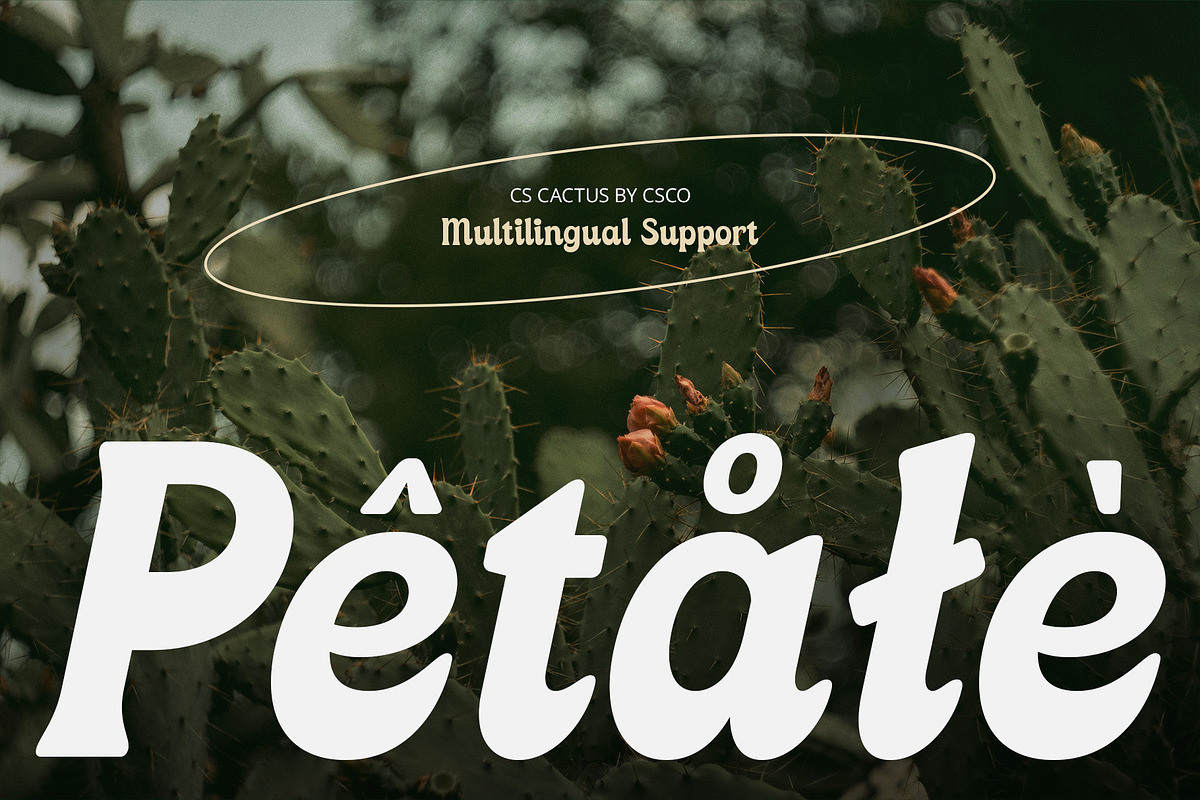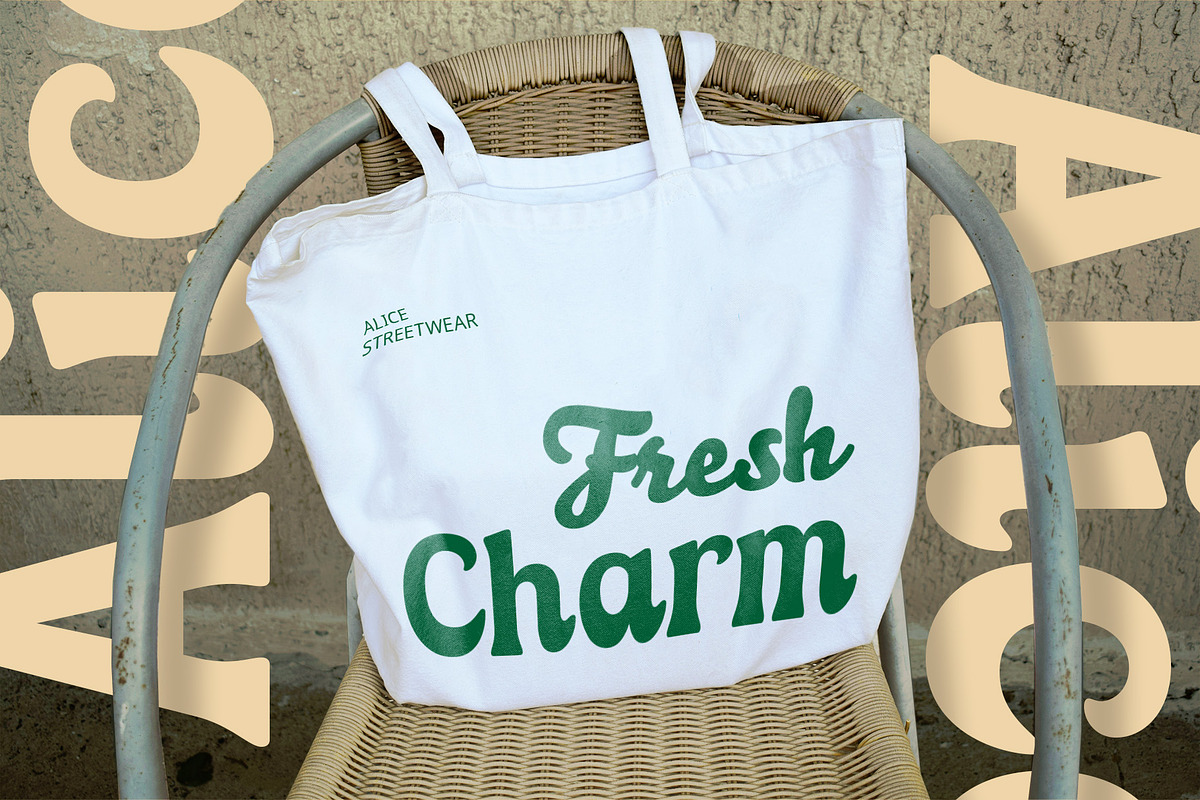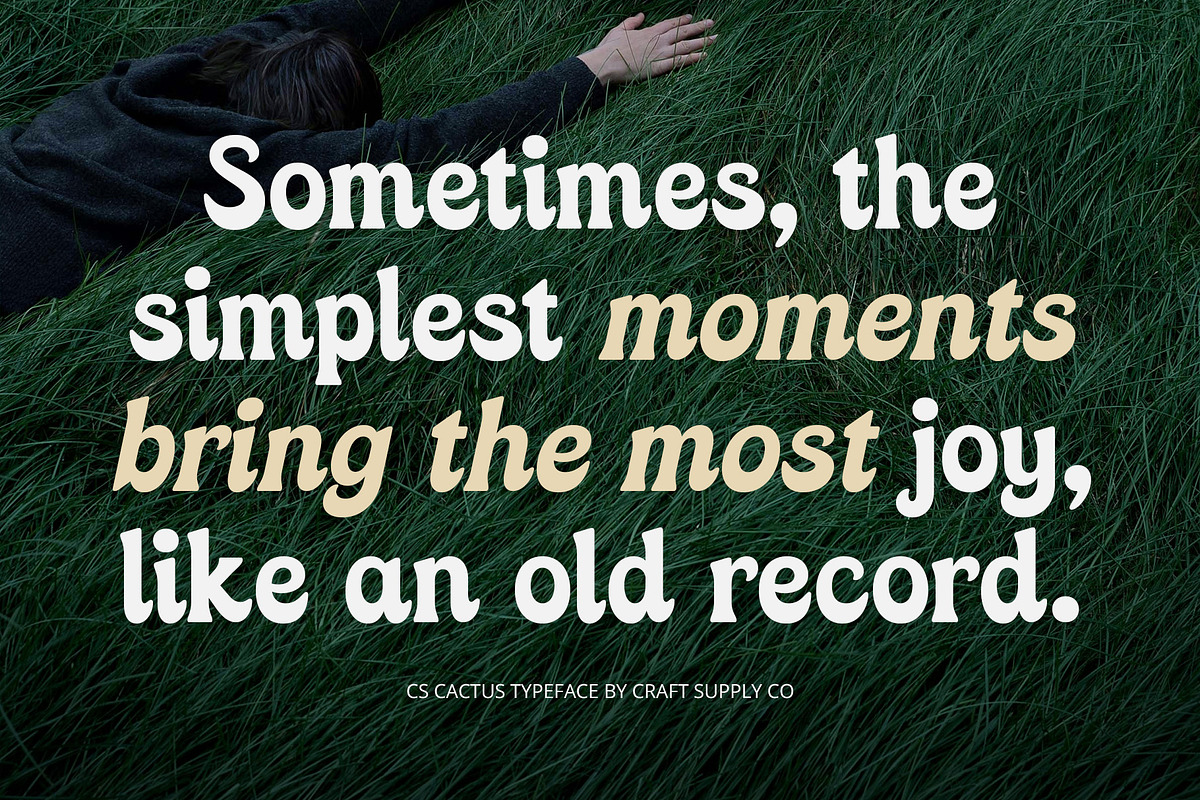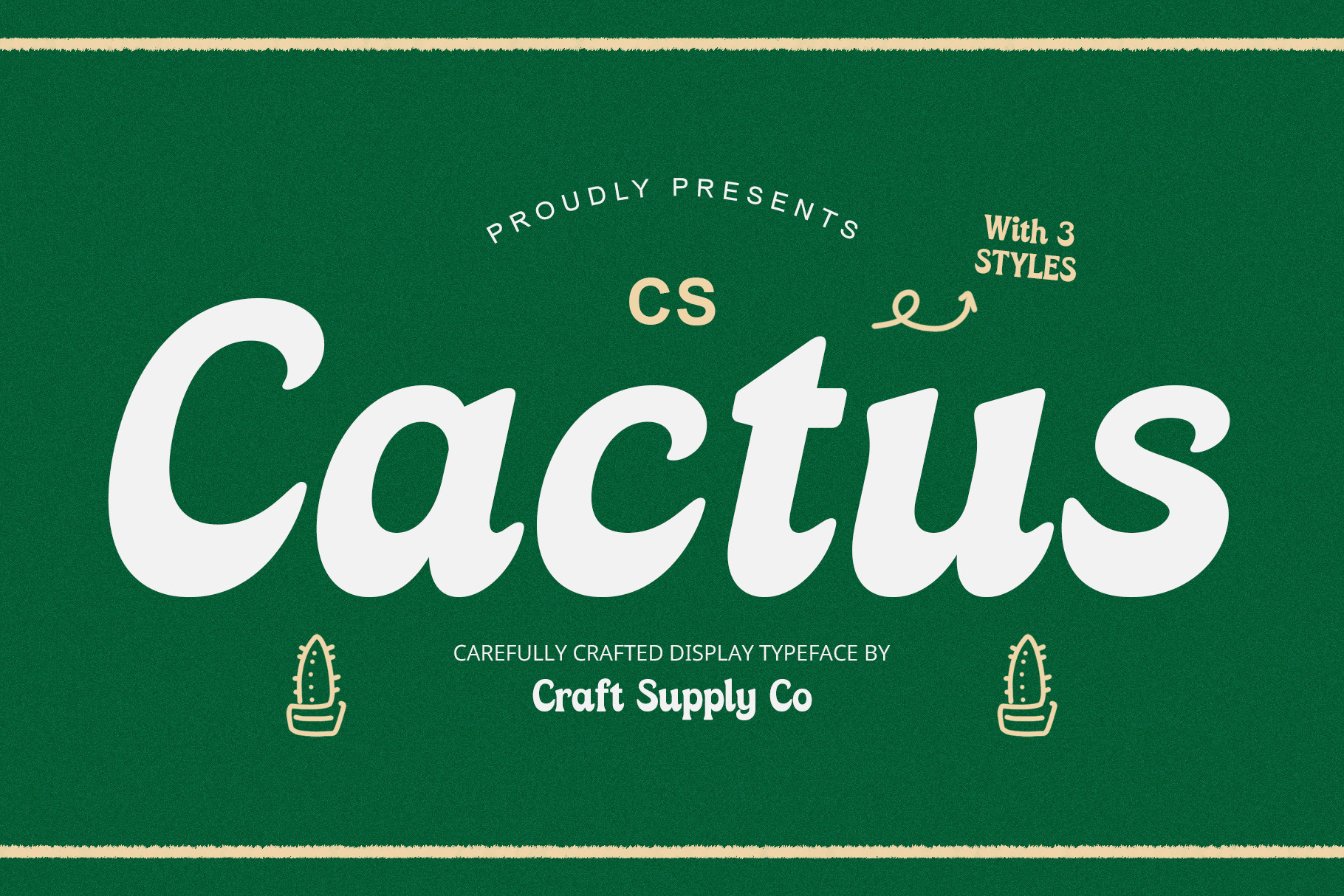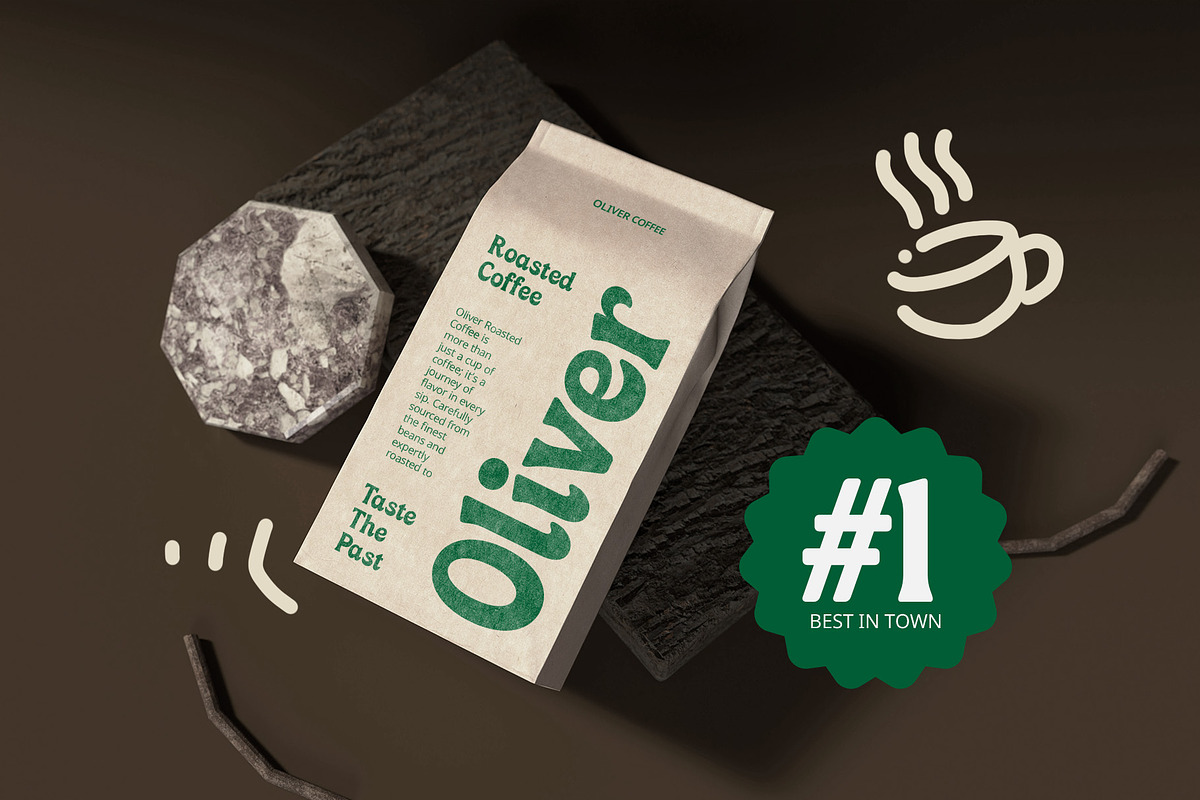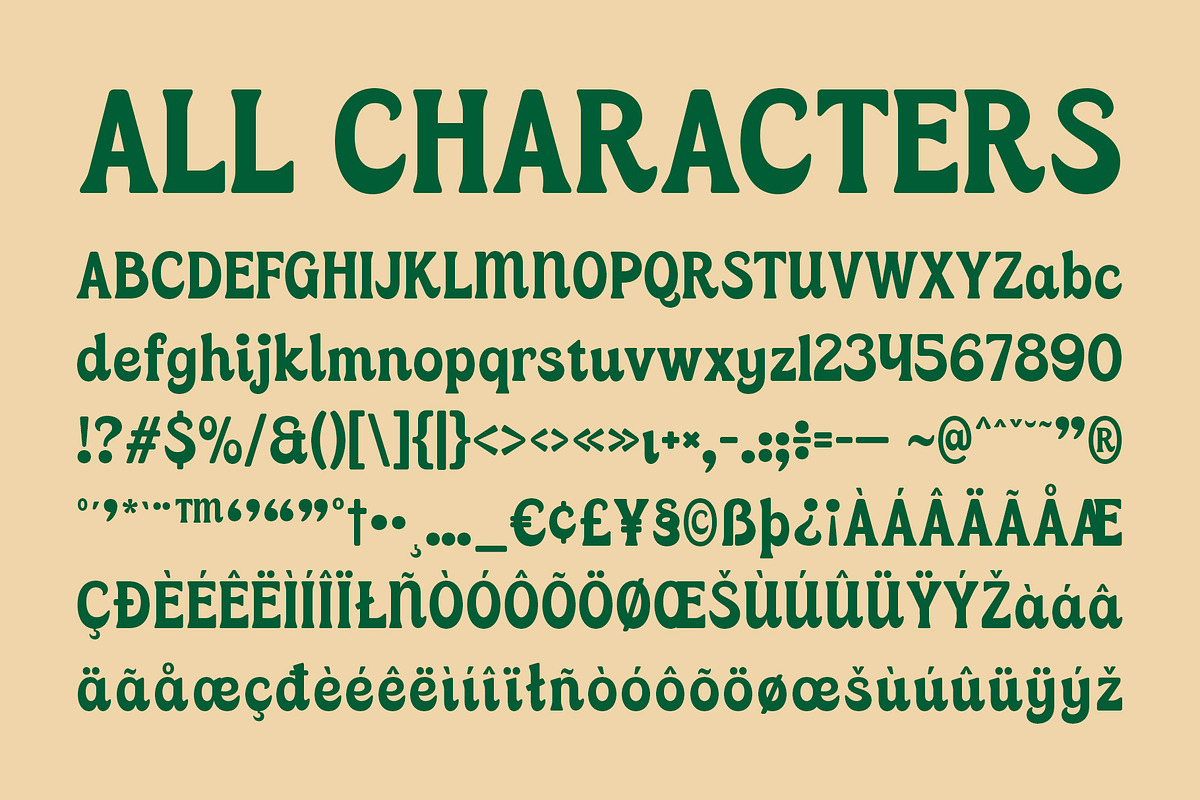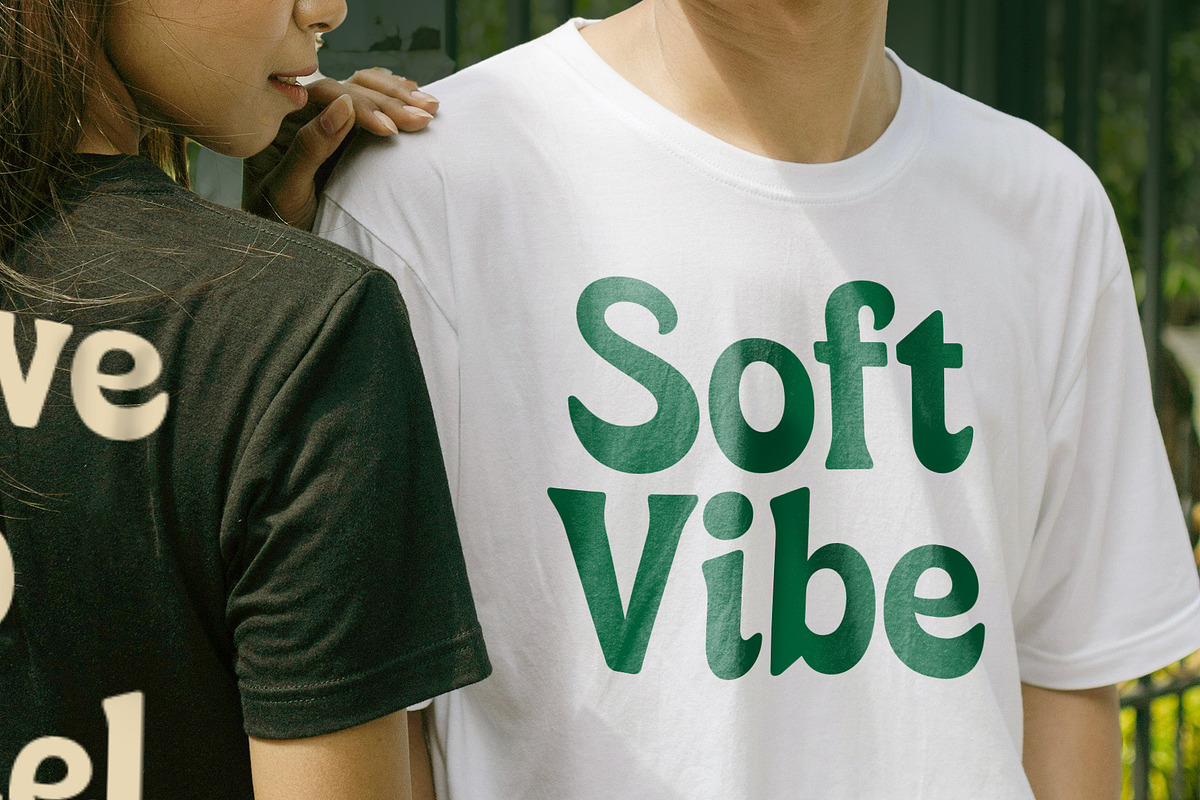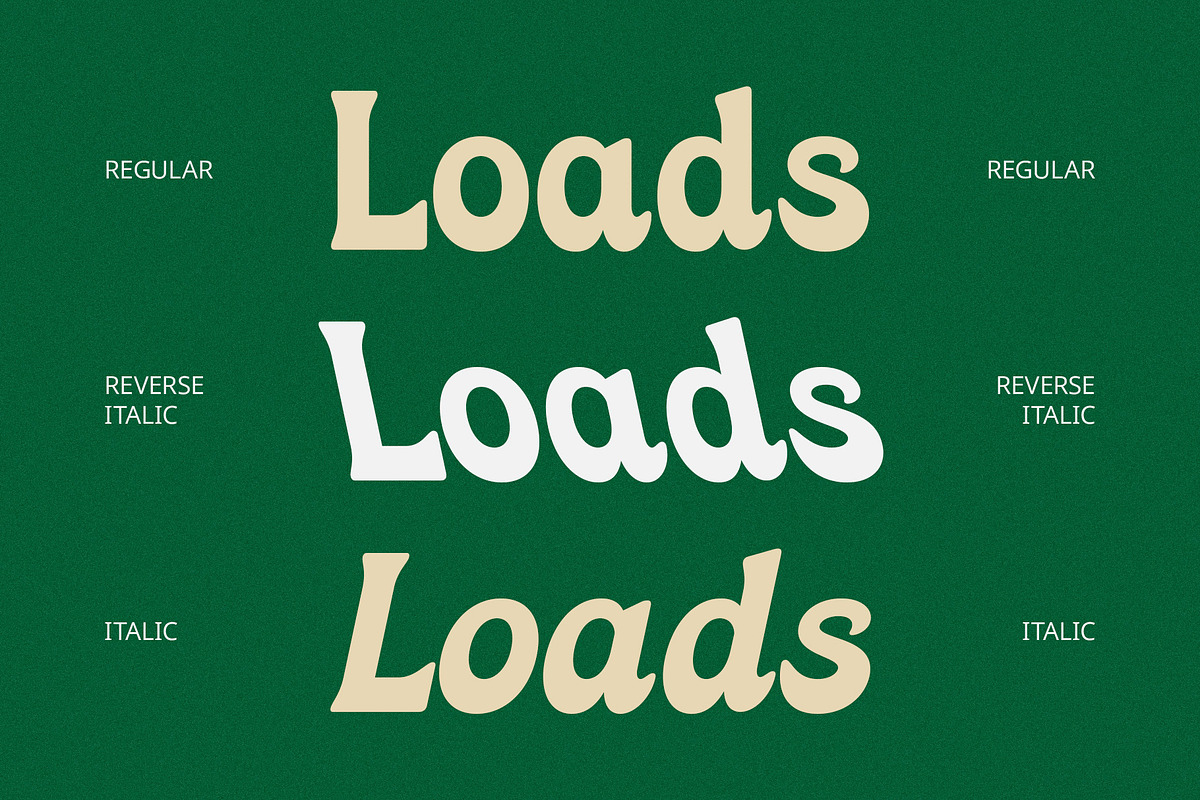
CS Cactus – Classic Font
CS Cactus – Classic Font: A Bold Serif with Timeless Elegance
Classic Serif with Retro Vibes CS Cactus – Classic Font is a serif typeface that combines bold letterforms with a distinct retro aesthetic. The thick, sturdy serifs exude strength and sophistication, while the overall design evokes a sense of nostalgia, recalling the vintage typography of past eras. Its timeless appeal makes it the perfect choice for projects that aim to blend classic elegance with a nostalgic flair.
Bold, Sturdy Serifs for a Strong, Authoritative Look The standout feature of CS Cactus is its bold, commanding presence. The sturdy serifs and thick letterforms create a solid, reliable appearance, making the font ideal for designs that need to convey strength and authority. The bold weight ensures that this font makes a statement, perfect for headlines, branding, and any project requiring strong, impactful typography with a classic edge.
Perfect for Nostalgic, Retro-Inspired Designs CS Cactus – Classic Font is designed with vintage charm, making it ideal for retro-themed projects. Whether used for posters, branding, or editorial designs, this font adds a nostalgic vibe that recalls the typography of the past while offering a modern twist. Its blend of classic elements with a retro feel ensures it stands out in any design, making it perfect for projects that want to evoke a sense of timeless style with a touch of vintage appeal.
- CS Cactus Regular
- CS Cactus Italic
- CS Cactus Reverse Italic